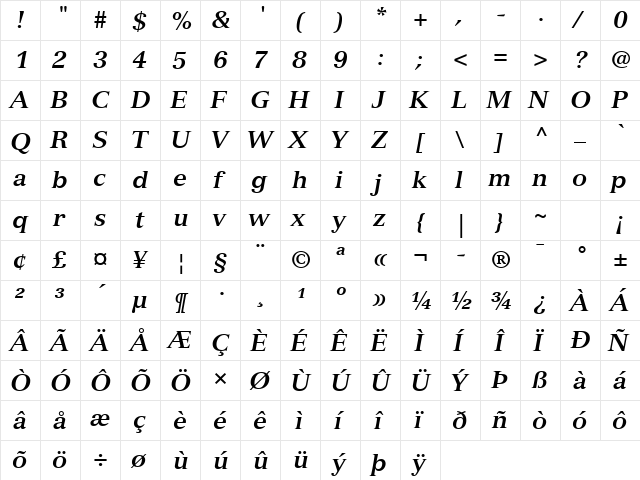
Versailles LT Com 76 Bold Italic
| Foundry | Linotype GmbH |
| Designer | Adrian Frutiger |
Design Context for Versailles LT Com Typeface
Versailles LT Com is a composed and adaptable typeface that performs quietly and consistently across a wide range of design contexts. The dynamic lean of this cut emphasises speed and emphasis in any layout. The heavy weight commands attention and anchors typographic hierarchies.